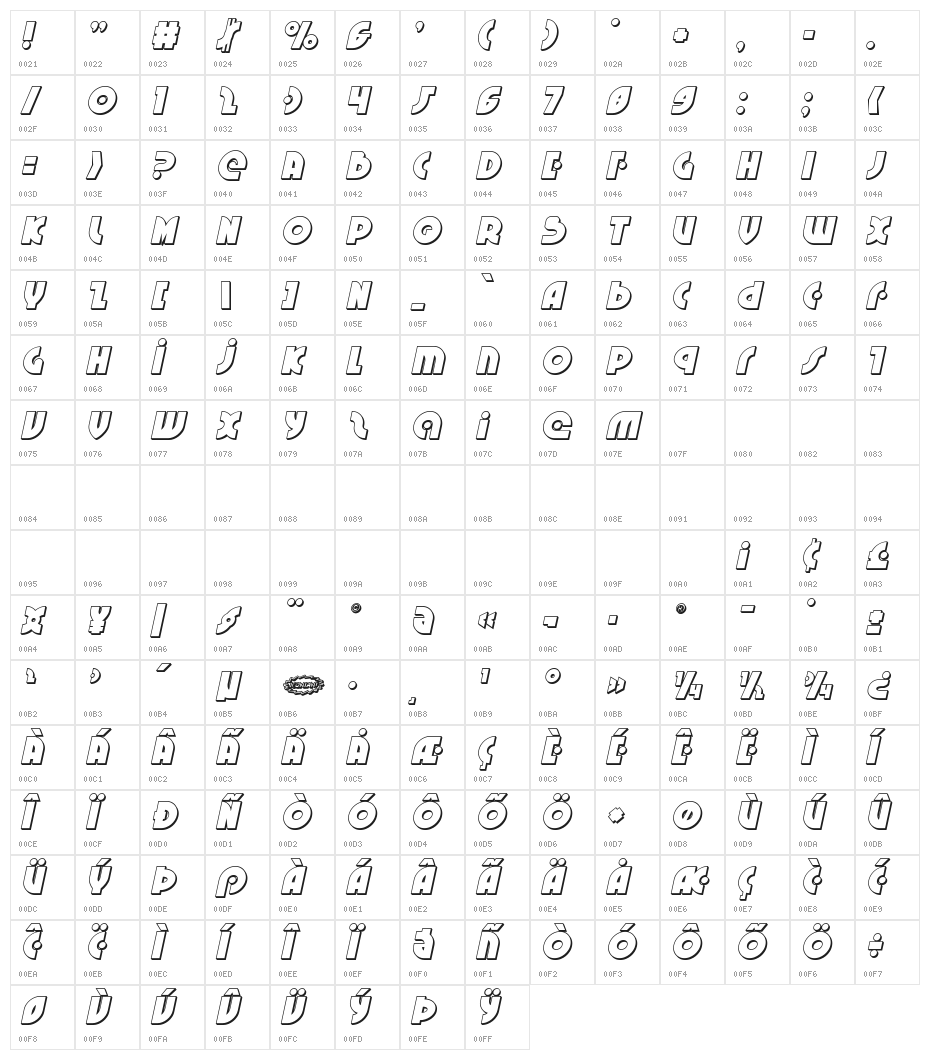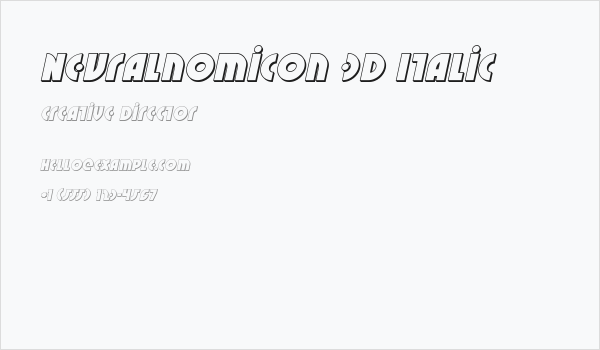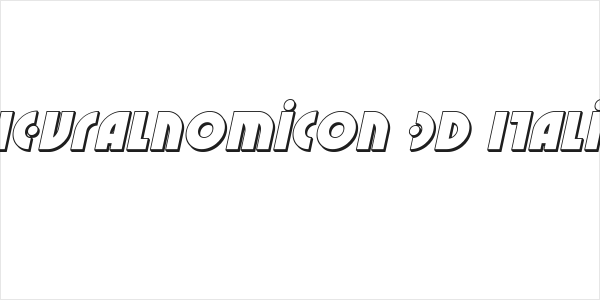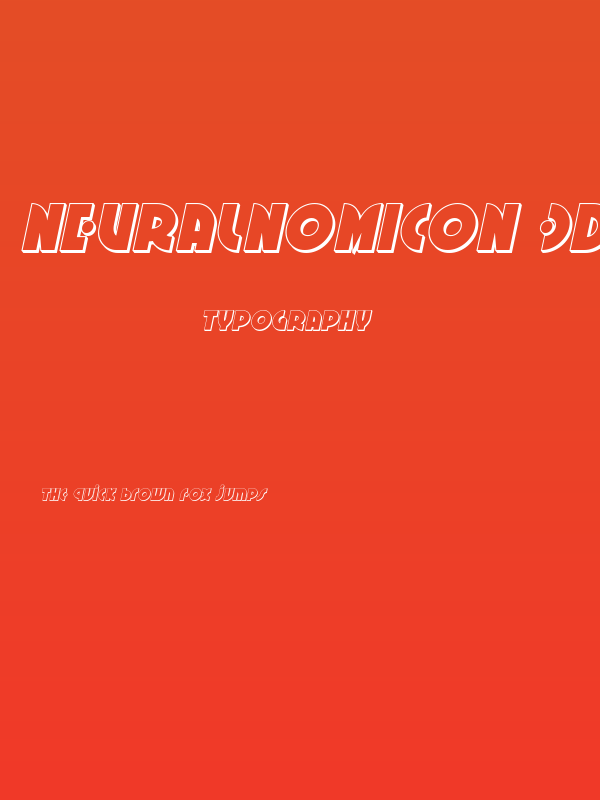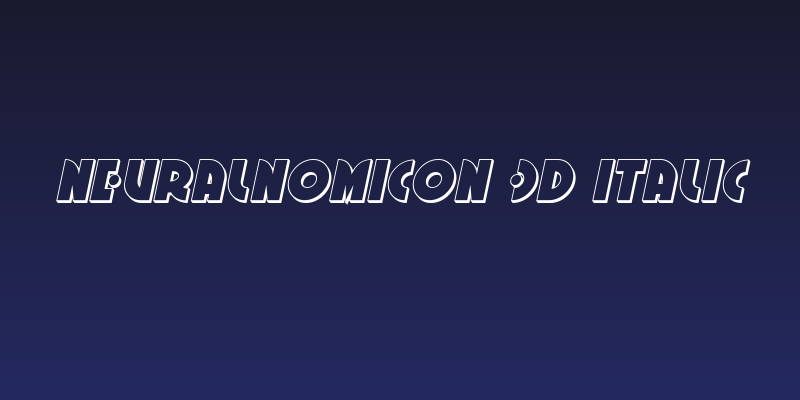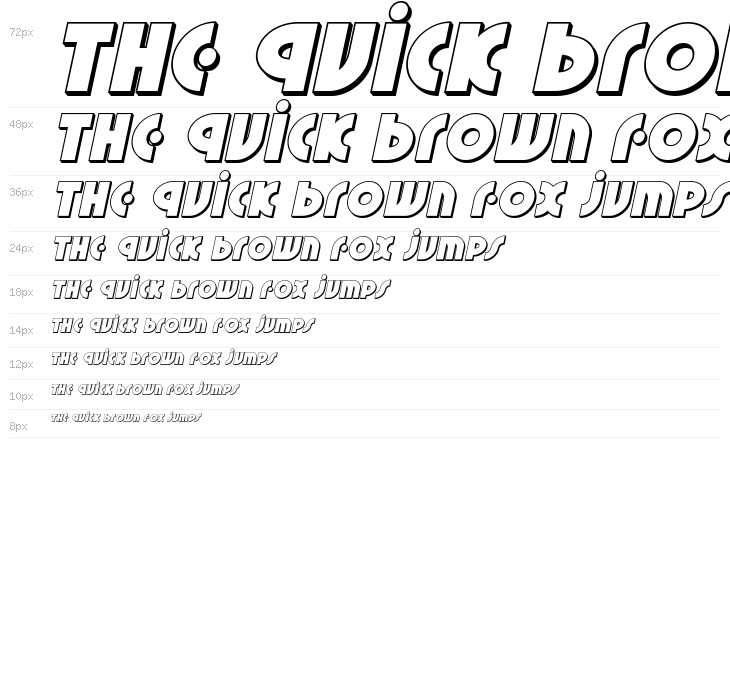
Neuralnomicon 3D Italic Font
Neuralnomicon 3D Italic Description
This font features a bold, three-dimensional style with a distinct italic slant, giving it a dynamic and futuristic appearance. The characters are outlined, creating a hollow effect that enhances the 3D illusion. Each letter is crafted with sharp angles and smooth curves, contributing to a sense of movement and depth. The uppercase and lowercase letters maintain a consistent style, while the numerals and special characters integrate seamlessly with the overall design. This font's unique aesthetic makes it stand out, perfect for projects that require a modern and eye-catching typeface.
| Proposed Projects | Ideal for video game titles, sci-fi movie posters, tech branding, and digital art projects. |